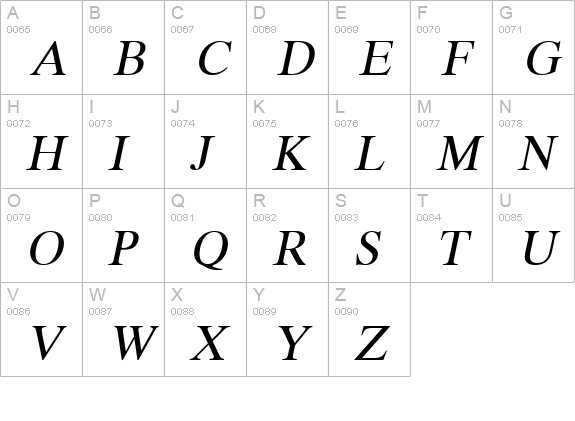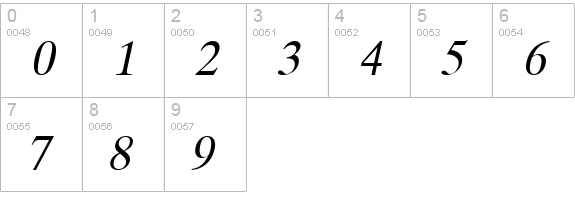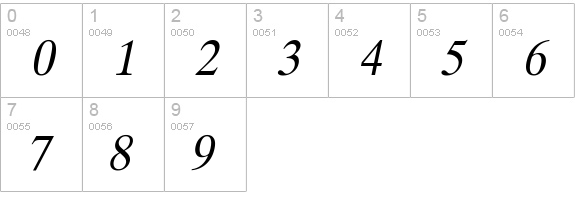
Duke Wide Italic Font Details
Duke Wide Italic is a distinctive, extended-width, italic variant in the Duke typeface family \xE2\x80\x94 well suited to design and typography projects.
Introducing Duke Wide Italic, a modern and stylish font that exudes sophistication and elegance. With its sleek and elongated letterforms, Duke Wide Italic is perfect for adding a touch of class to your designs. This versatile typeface is ideal for a wide range of projects, from branding and advertising to editorial design and more. One of the best features of Duke Wide Italic is that it is completely free to download at FontsMarket.com. This means you can easily access this premium font without any cost, making it an excellent choice for both personal and commercial use. Whether you are a designer looking to elevate your projects or a business owner seeking a sophisticated font for your branding, Duke Wide Italic is sure to impress. Download it today and bring a touch of luxury to your designs!